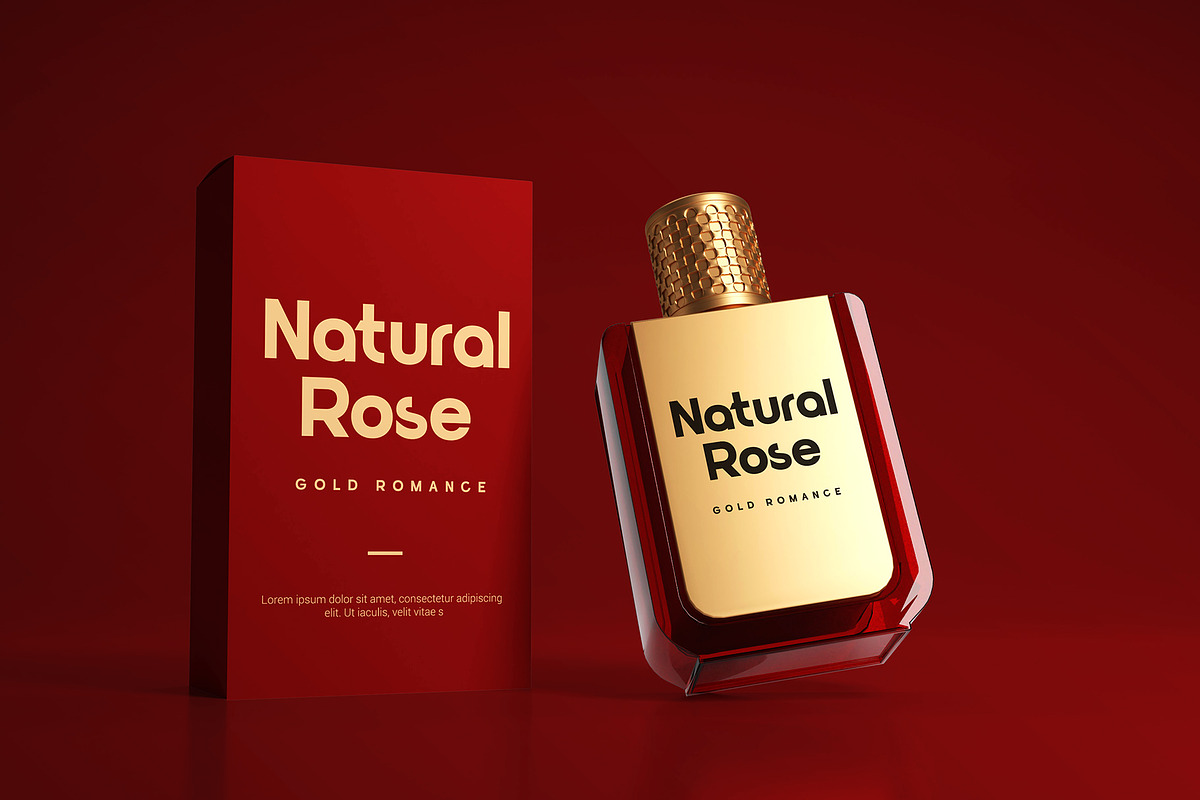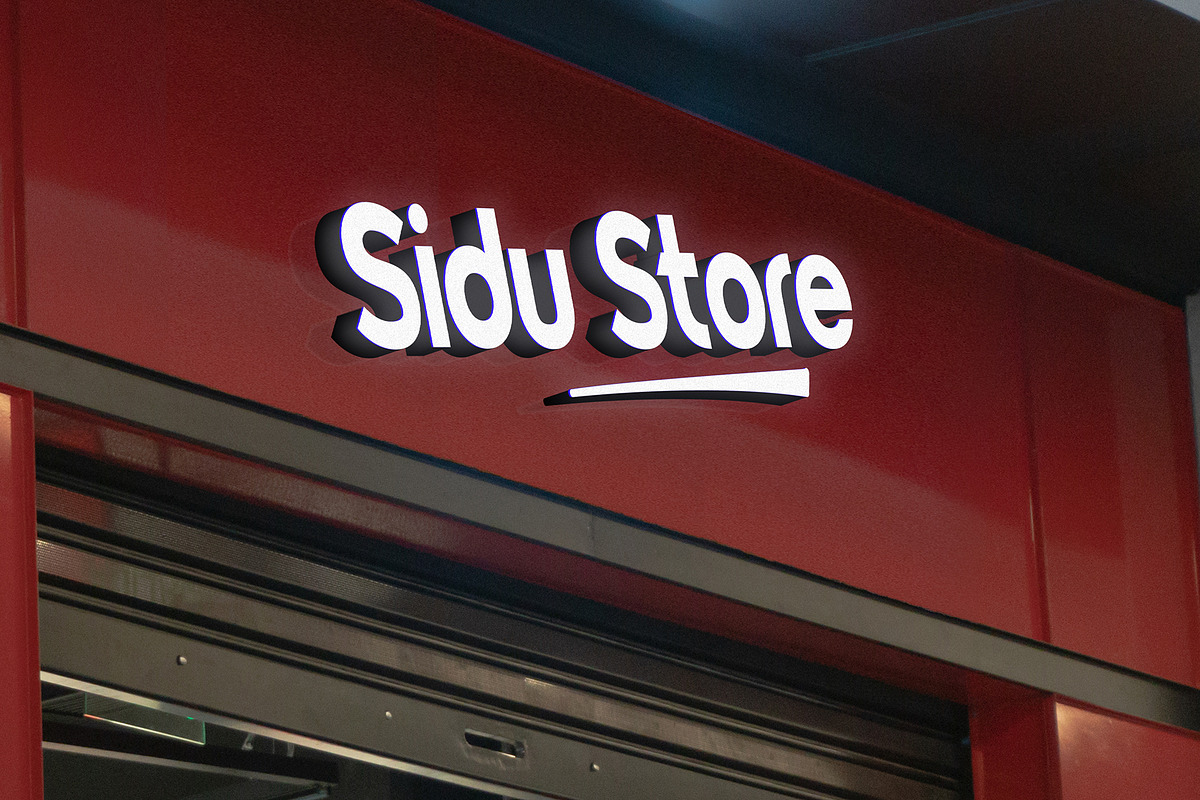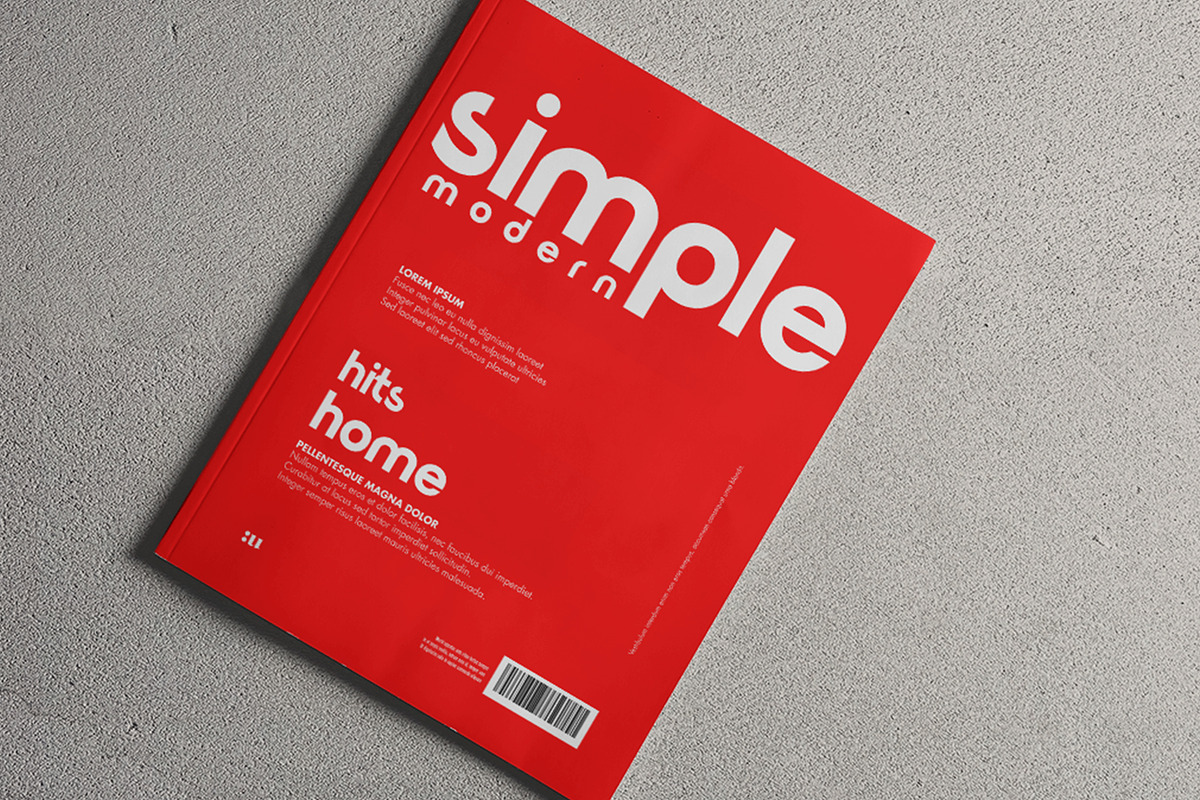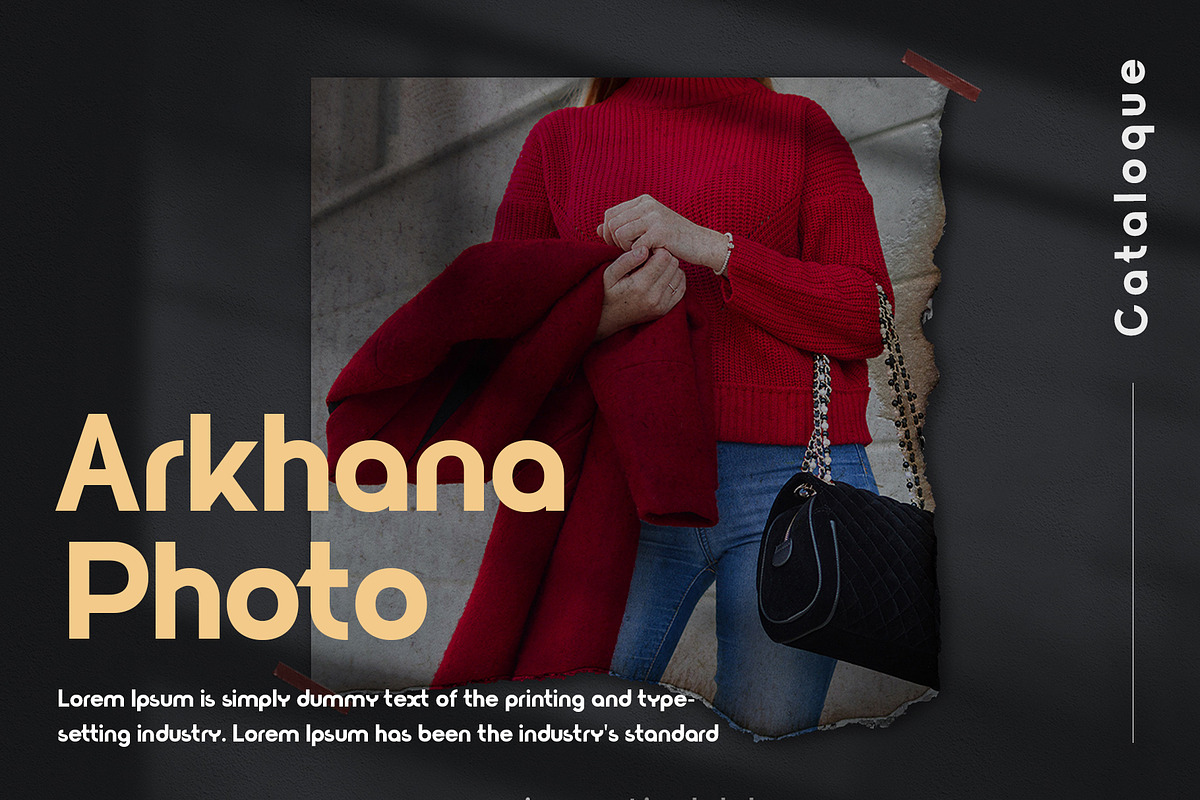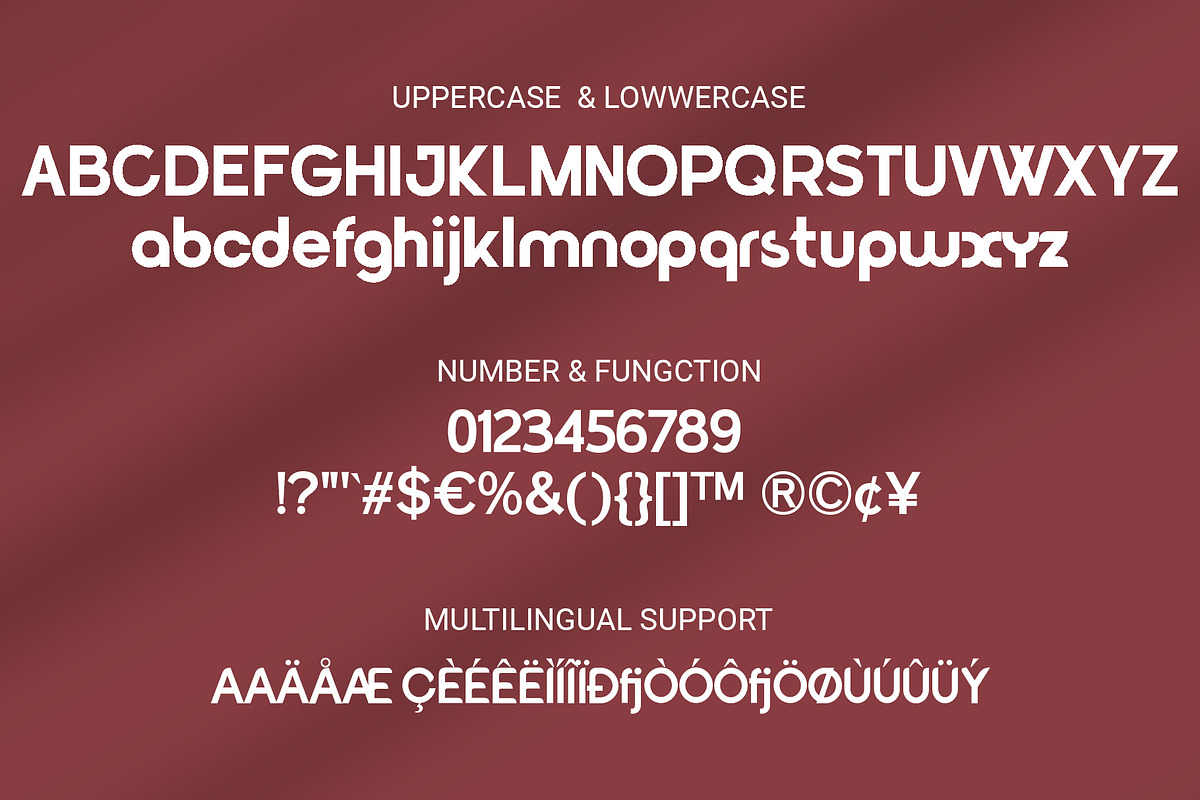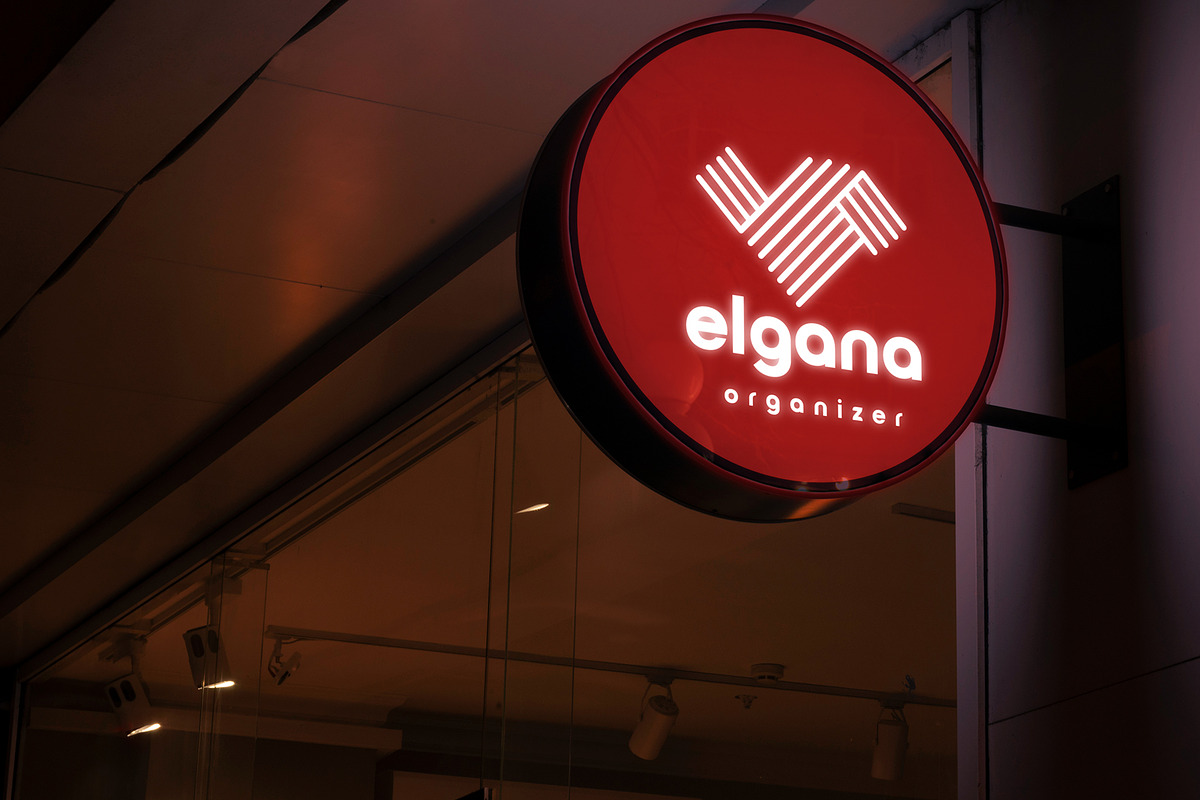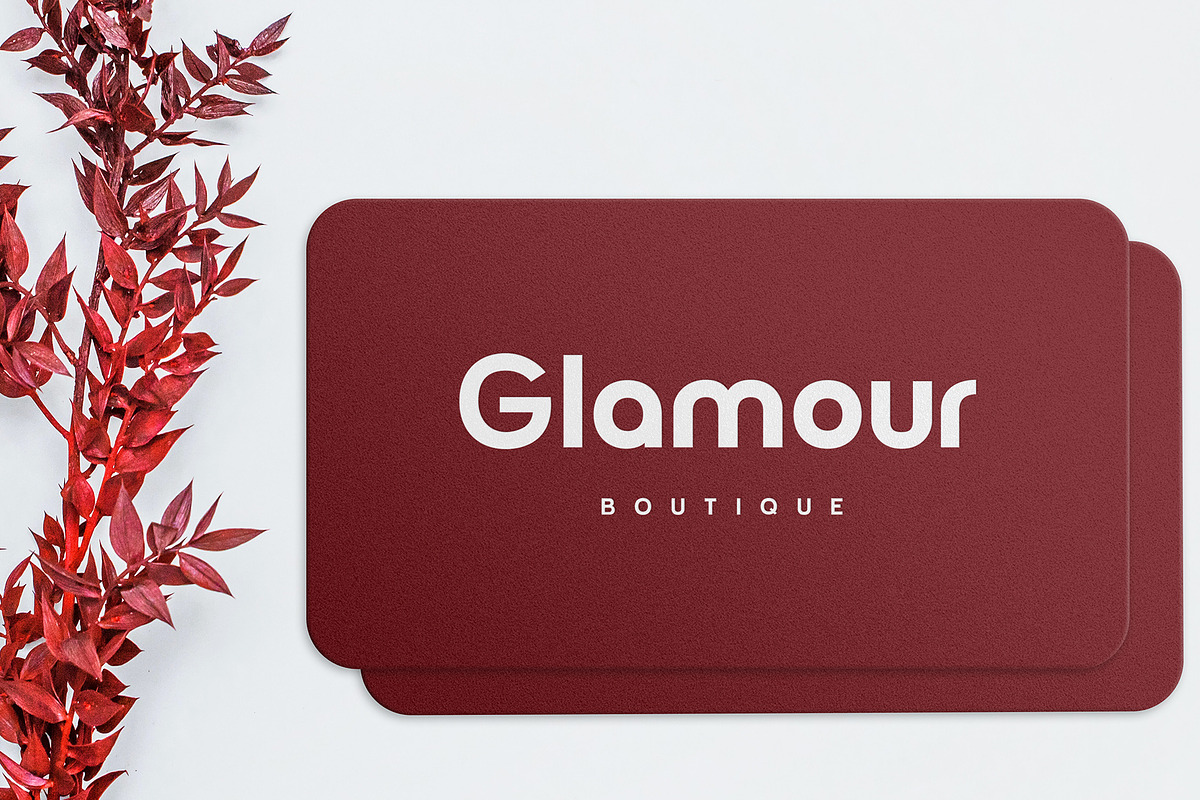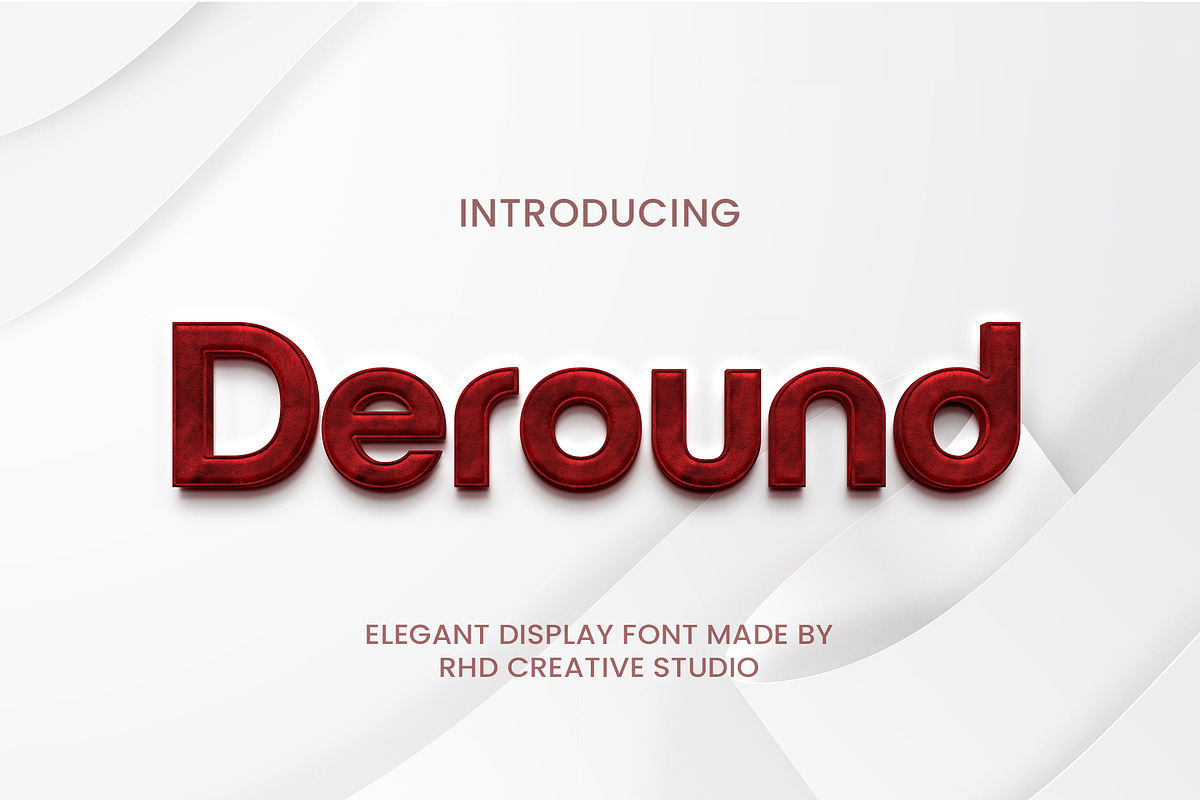
Deround Elegant Display Font
Hello everyone, I would like to introduce Deround Elegant Display Font.
Tecnobe Modern Sans Display Font with Handmade character. Deround Elegant Display Font, Modern font to make your design project stand out! Deround is a perfectly choice for any creative endeavor, creating, modern, chic, lifestyle design such as logotype, title, cover, branding, invitations, wedding designs, display and magazine, social media posts, advertisements, printed quotes, product packaging, corporate brand, product designs, labels, photography, watermarks, special events and any other project with modern touch.